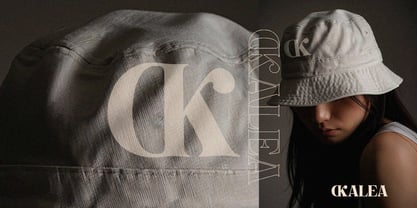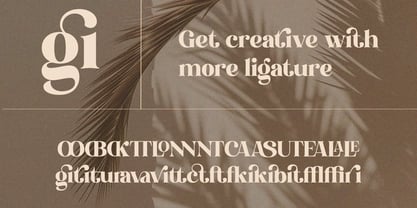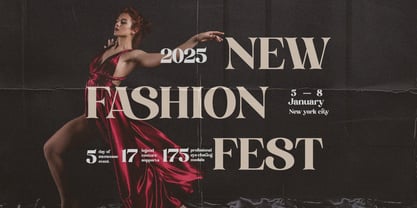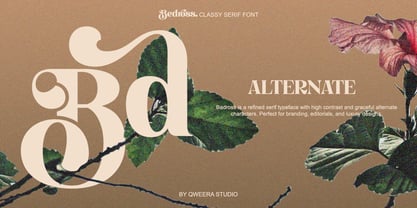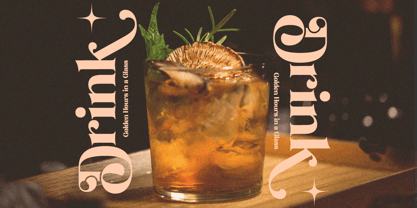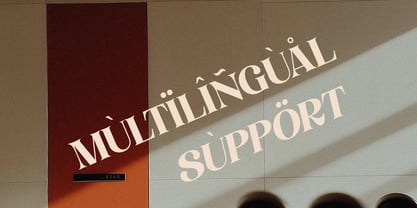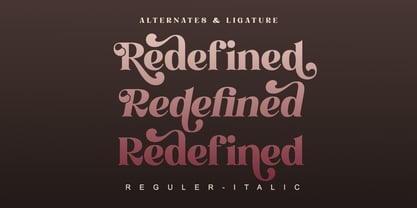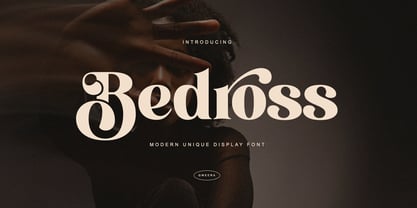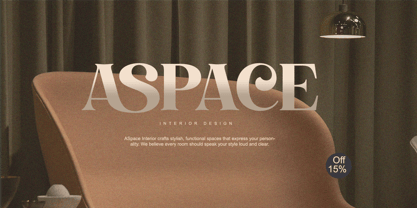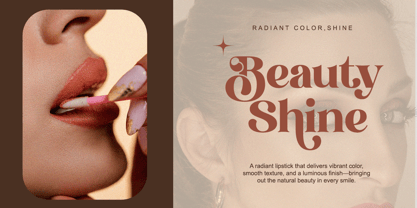
Bedross
by Qweera Studio
The Bedross Font Family was designed by Idhham Cholid Rikzano Yahya and published by Qweera Studio. Bedross contains 2 styles and family package options.
Bedross - Modern Elegant Serif Font for Premium Branding Bedross is a sophisticated serif typeface that masterfully blends contemporary elegance with timeless refinement. Featuring both Regular and Italic styles with exquisite alternates and ligatures, this font is expertly crafted for luxury branding, high-end logos, premium packaging, and editorial designs that demand both beauty and functionality. Where Modern Elegance Meets Classic Sophistication With its refined serifs and graceful italic variant, Bedross delivers exceptional versatility for discerning brands. The carefully designed alternates and ligatures enable flawless typographic harmony, perfect for creating distinctive visual identities with a touch of class. Premium Features Include: Elegant Serif Design – Balanced letterforms with refined details Dual Style Versions – Regular & italic for dynamic applications Stylish Alternates – 20+ premium character variations Sophisticated Ligatures – Seamless letter connections Universal Compatibility – From business cards to billboards Extended Latin Support – Comprehensive character set Elevate Your Brand with Bedross's Timeless Appeal Ideal for: Luxury fashion branding High-end cosmetic packaging Premium editorial layouts Elegant logo creation Sophisticated stationery design Available Now – Experience Bedross's Refined Elegance!